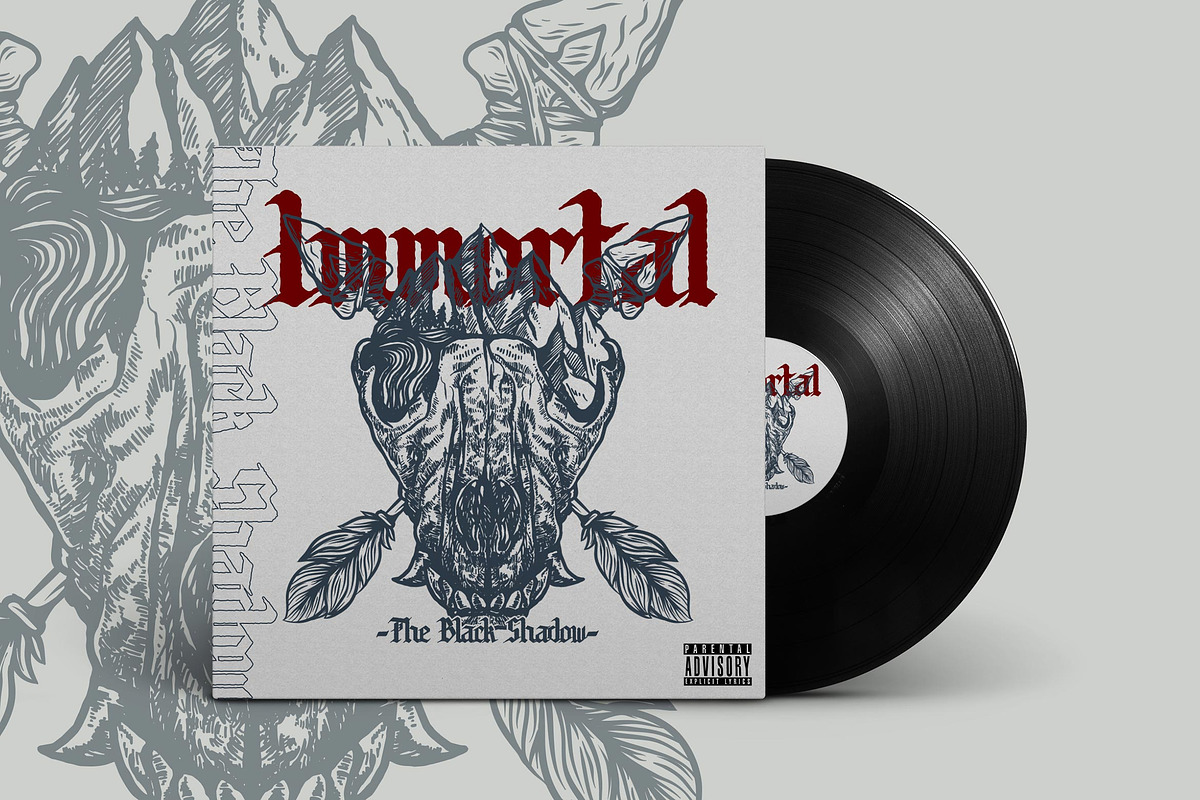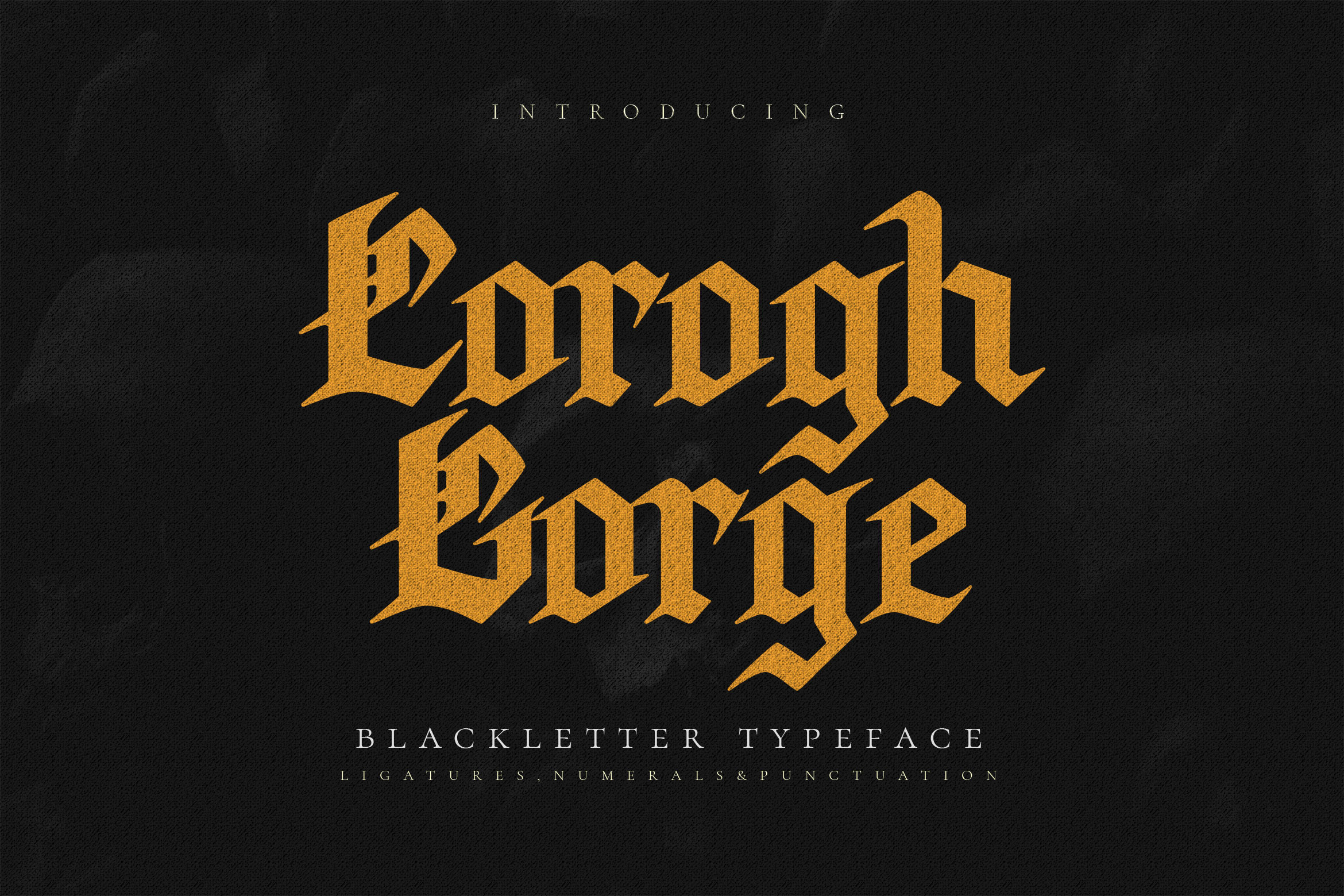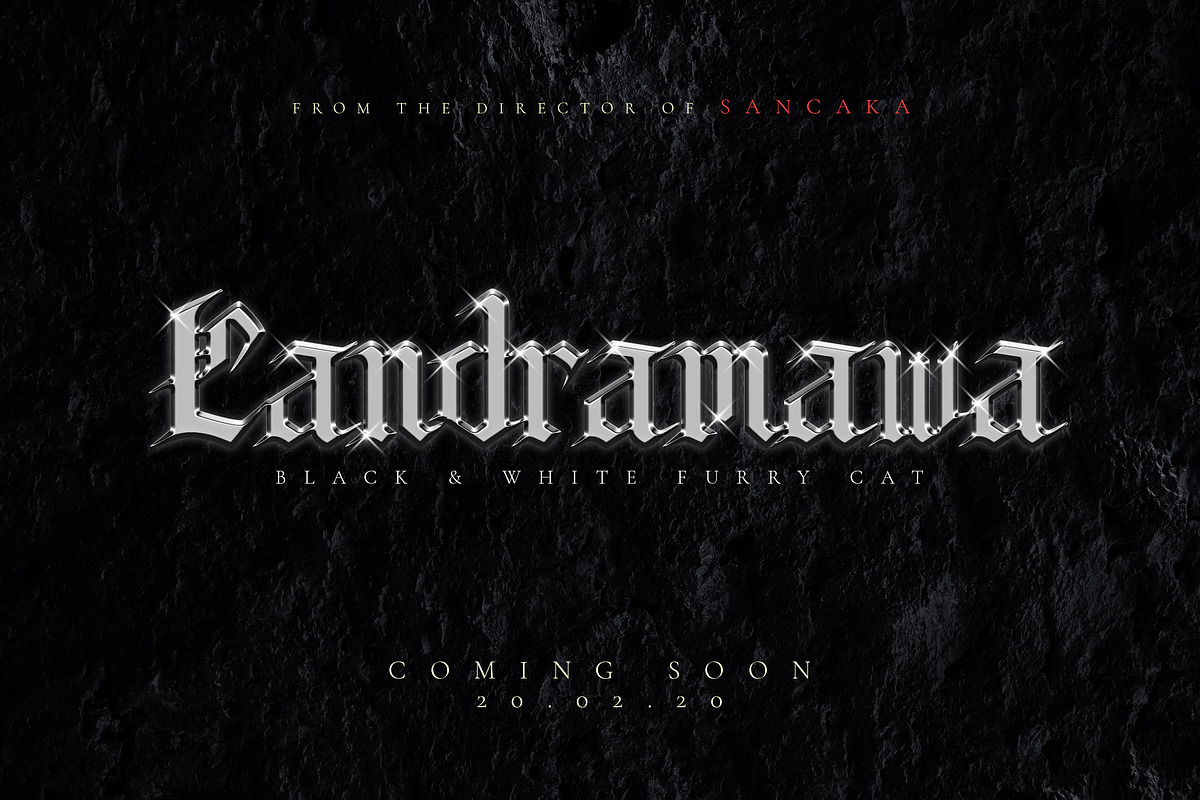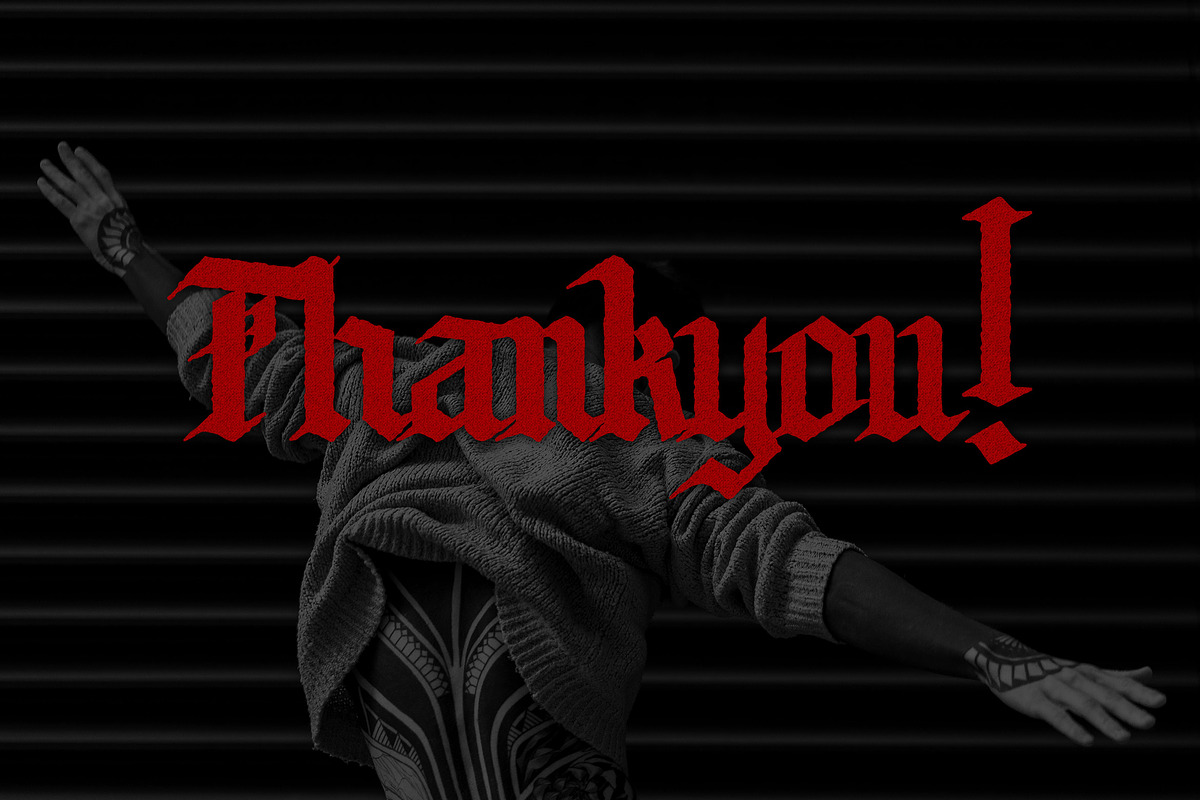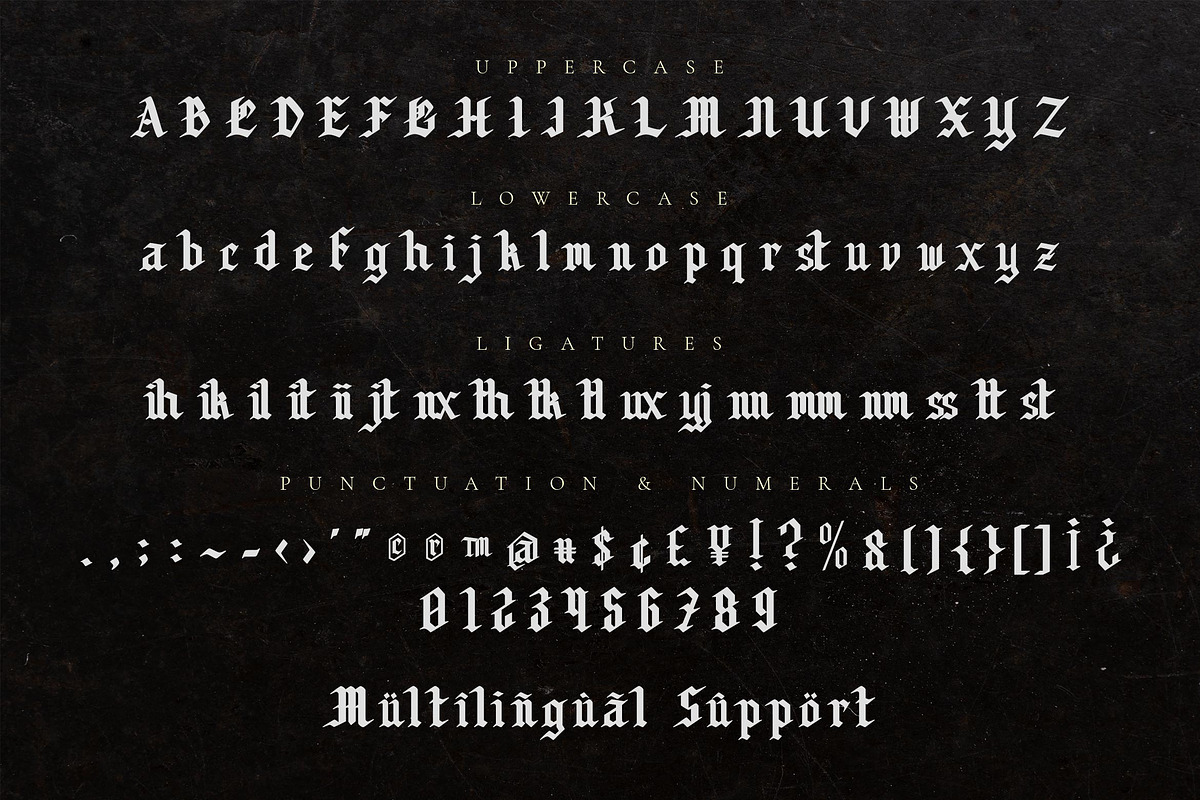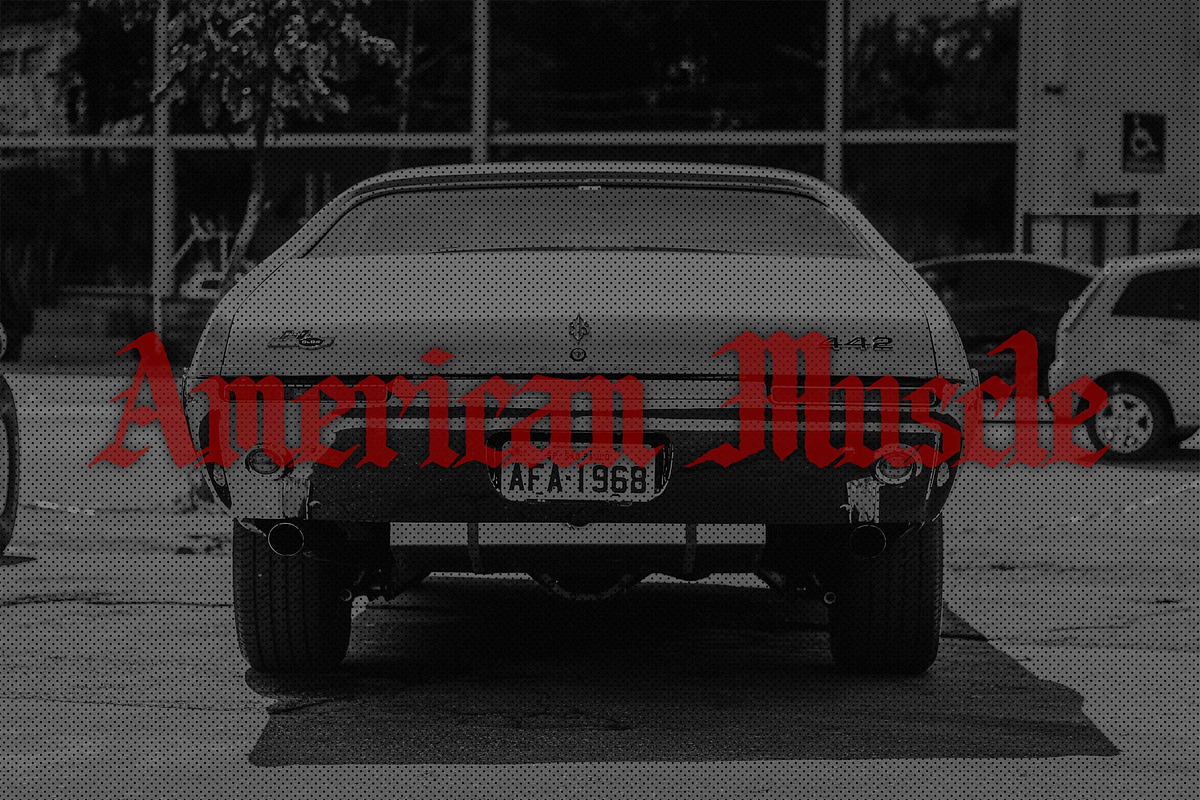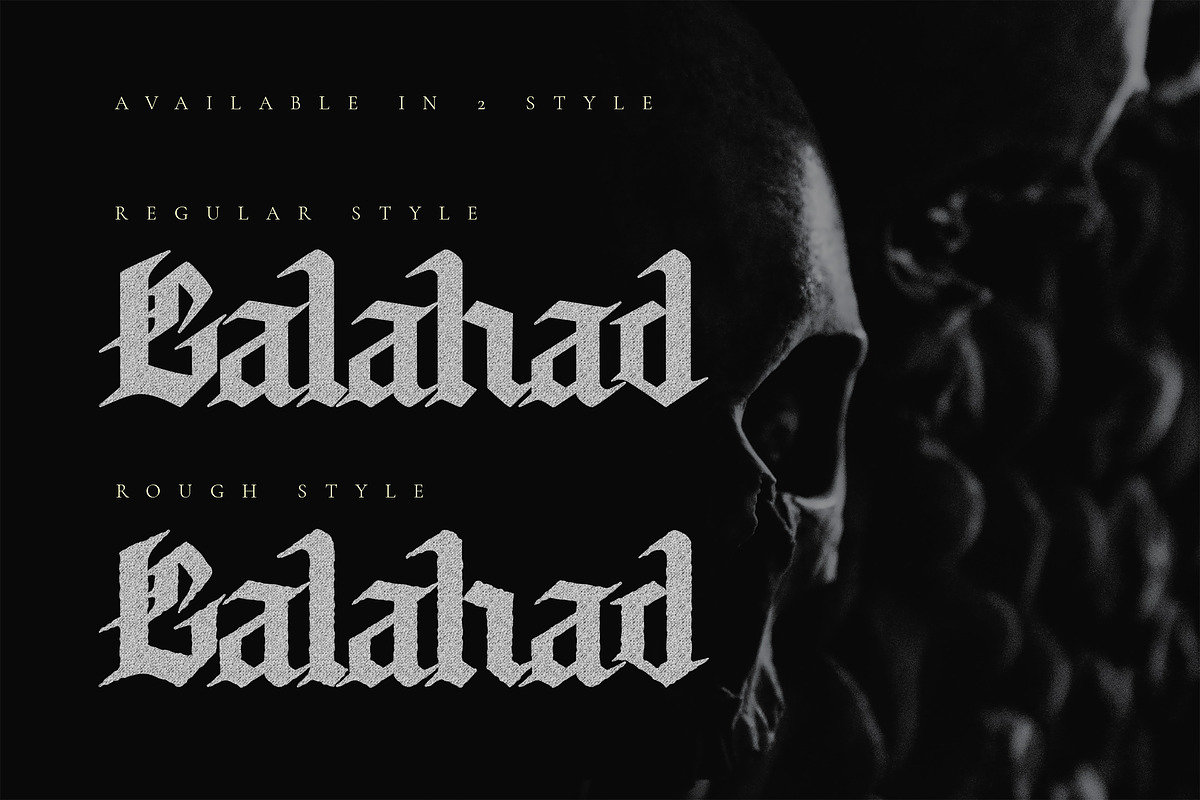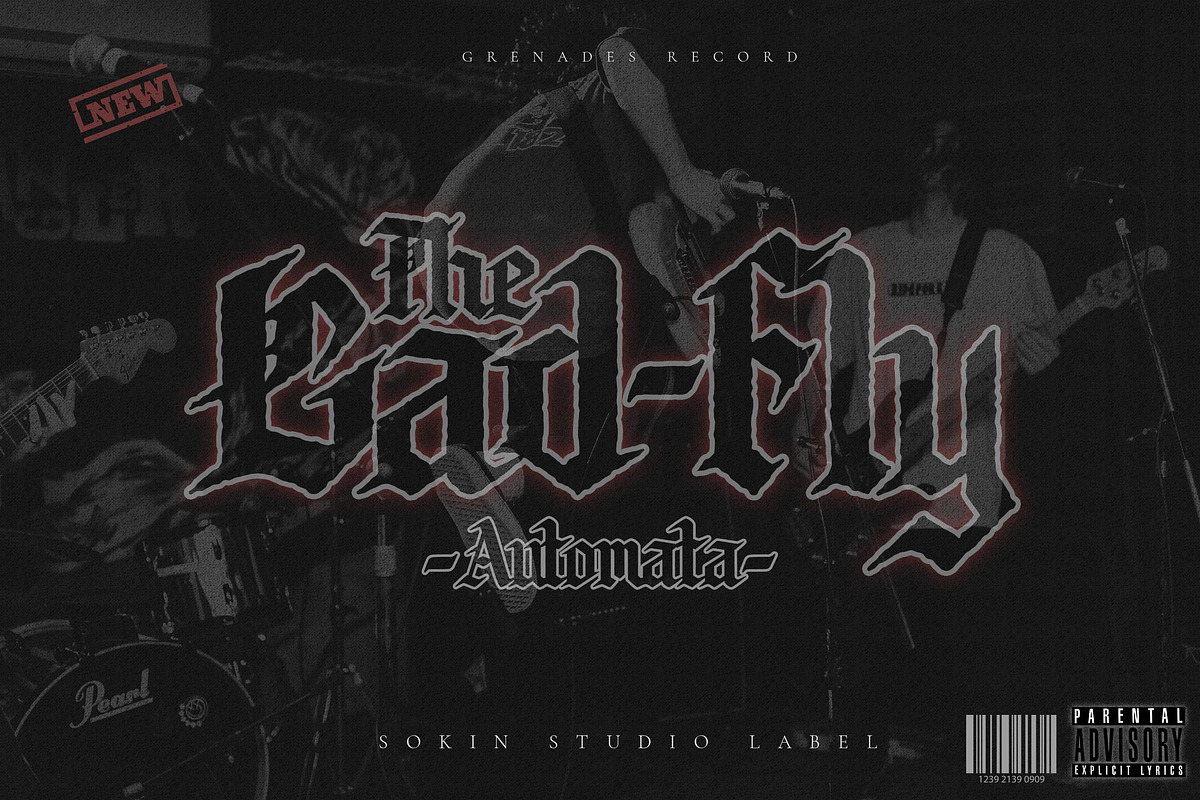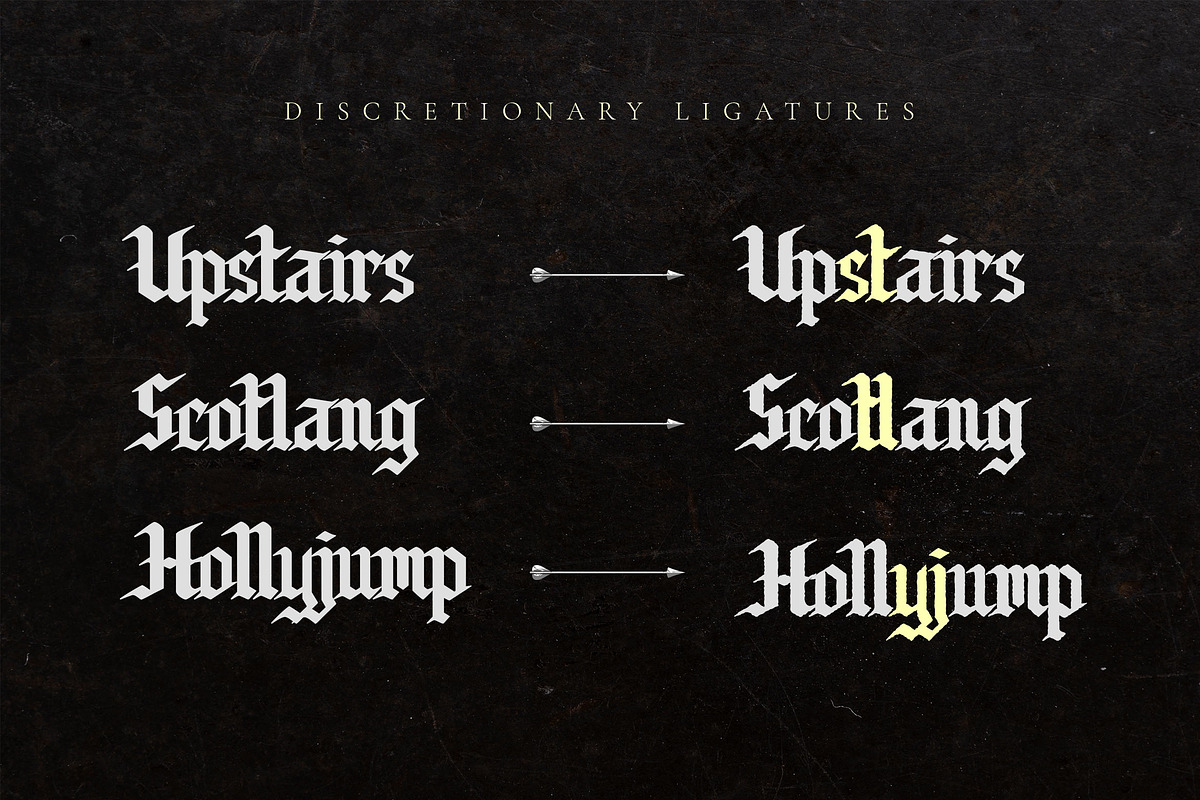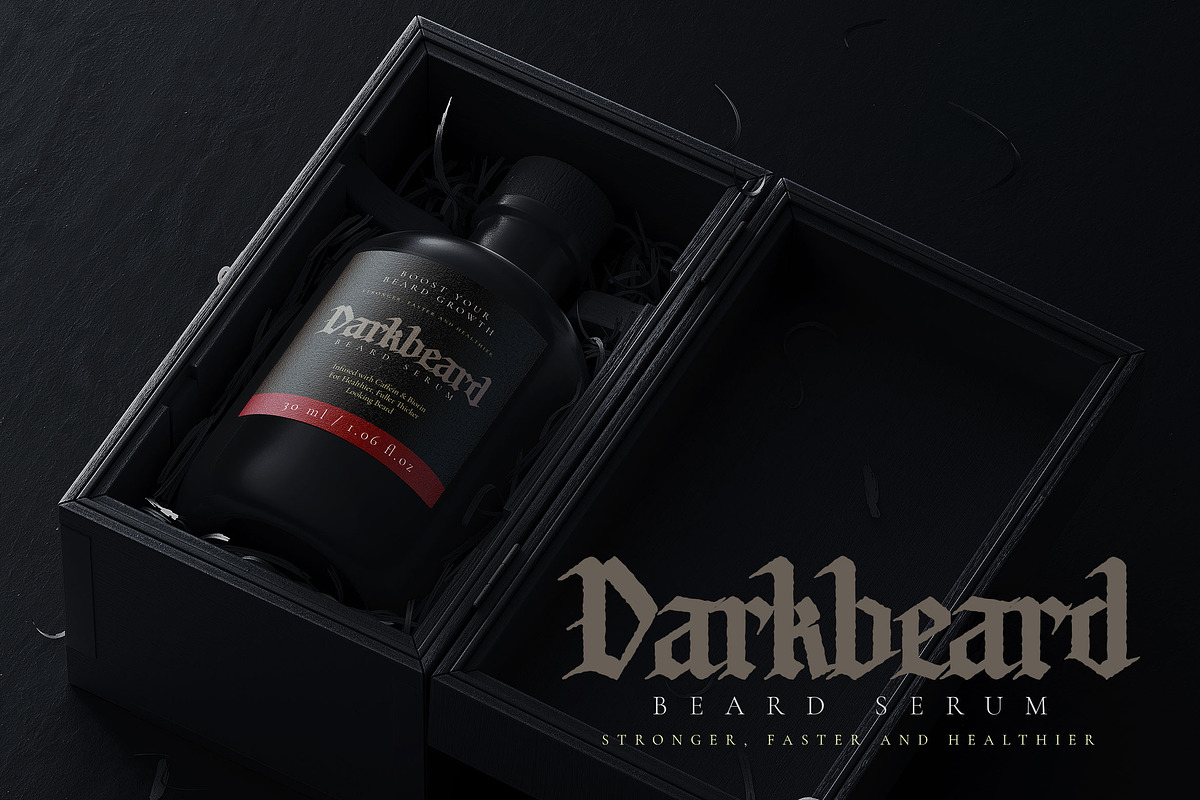
Corogh Gorge - Blackletter Font
Corogh Gorge is a Blackletter Font. It has gothic, mysterious, brave, classic. It’s a great font for fashion, apparel projects, signature, album cover, logo, branding, magazine, social media, & advertisements, but also works great for other projects.
- 2 Style Regular and Rough